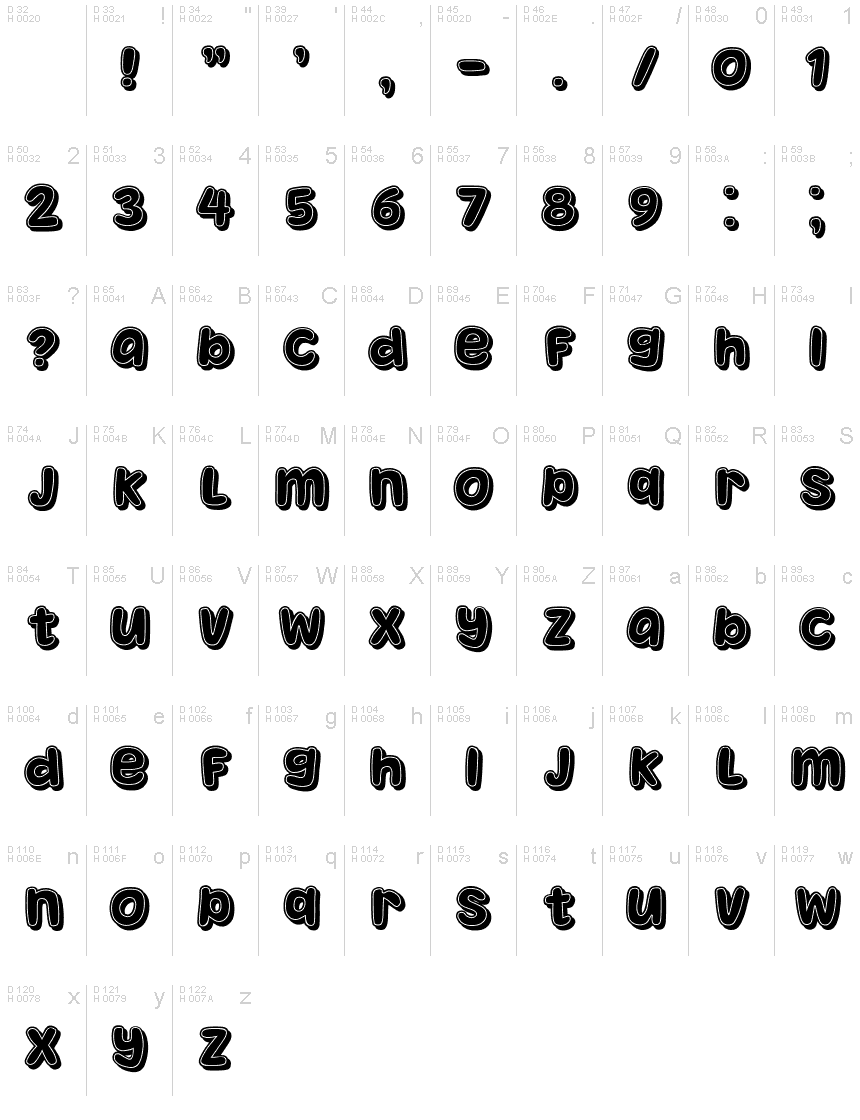
Takeover 3D Filled Regular
Takeover 3D Filled font is a 3d comic typeface designed by Vladimir Nikolic.
"Takeover" comes in Regular, Shadow, 3D, 3D Filled, College, College Comic, and Italic variants!